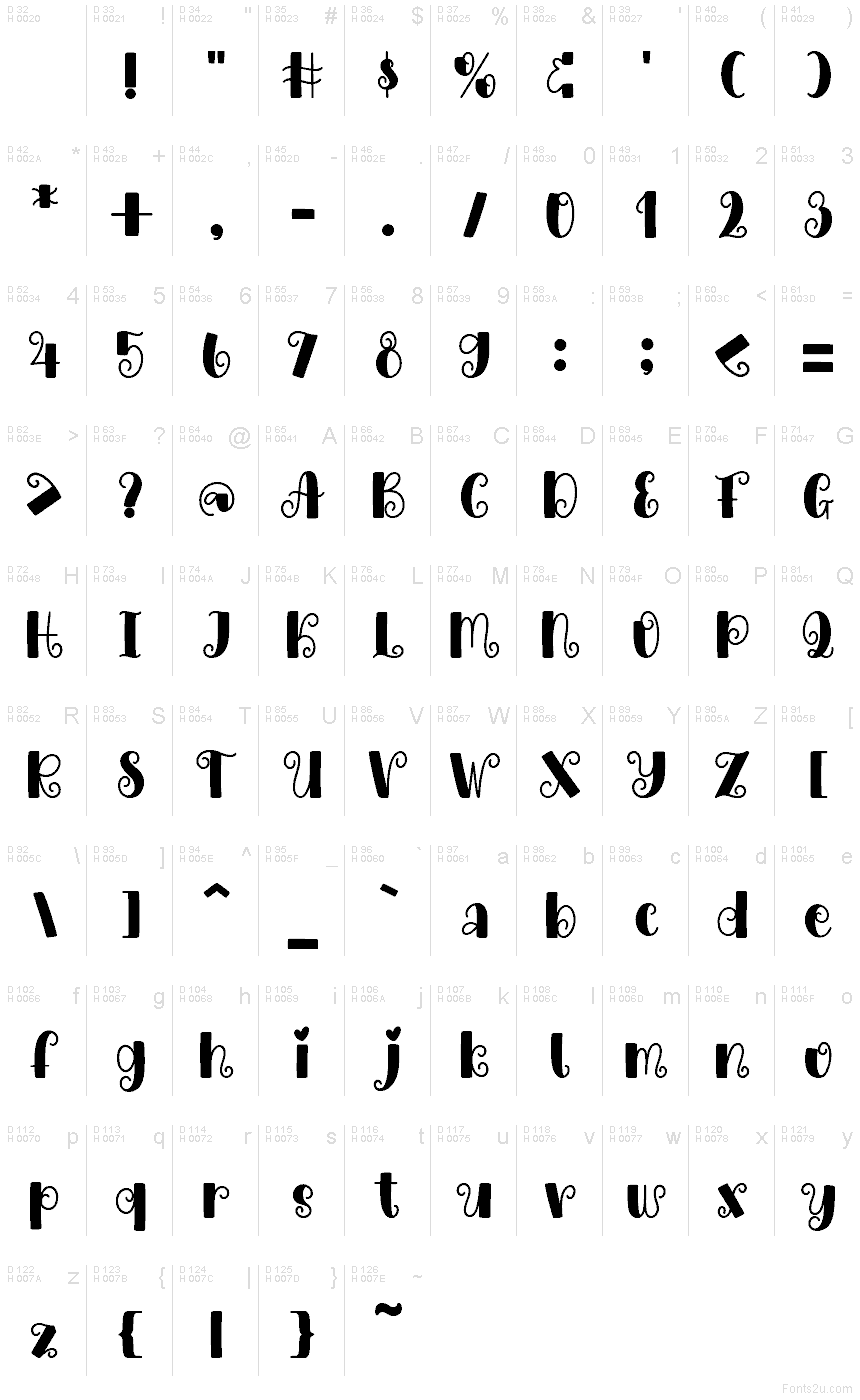
Sweet Christmas
Sweet Christmas font by Mozatype is a free Christmas holiday typeface with looping curls, candy-cane curves, and a hand-drawn warmth that feels like icing piped onto a cookie. The letters are tall, bouncy, and slightly whimsical, with playful swirls and a soft, inky black that stands out even at smaller sizes. It instantly gives anything you write a cozy, storybook charm, as if it belongs on stockings, ornaments, and handwritten notes by the fireplace.
Using Sweet Christmas, you can quickly dress up greeting cards, gift tags, party invitations, social media graphics, mug or T-shirt designs, and festive packaging. This free font shines when used large as a headline, then paired with a simple sans-serif for longer text so the curls don’t overwhelm your layout.